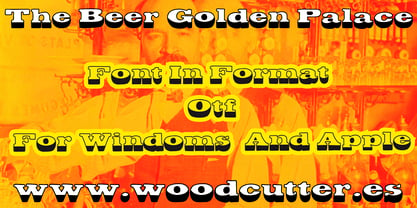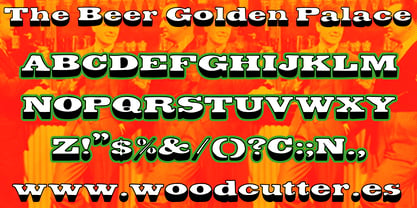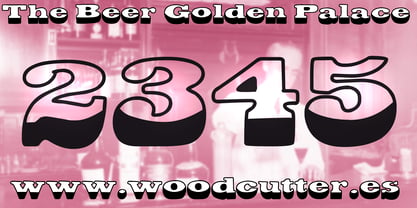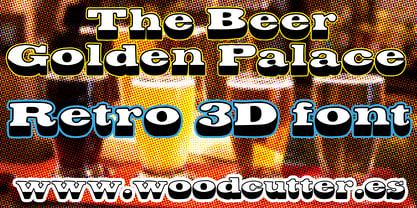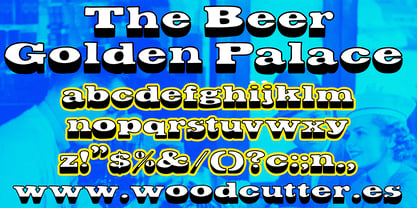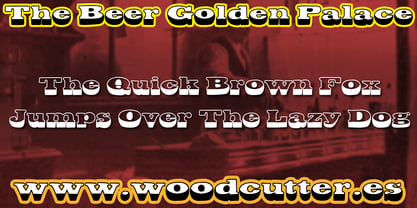
The Beer Golden Palace
by Woodcutter
The The Beer Golden Palace Font Family was designed by Jordi Manero and published by Woodcutter. The Beer Golden Palace contains 1 styles. More about this family
THE BEER GOLDEN PALACE is a typeface in uppercase and lowercase with accents, crafted with a vintage 3D style that recalls the classic signs of old breweries, saloons, and advertising from the late 19th and early 20th centuries. Each letter features a refined, slightly elongated main shape accompanied by a solid bottom shadow, adding depth and a bold three-dimensional presence. This shadow effect enhances readability and gives each word a strong, elegant impact.
The letterforms combine traditional charm with a refined tone, making this font perfect for graphic projects that aim to evoke a sense of nostalgic elegance with a handcrafted touch. It's ideal for beverage logos, bottle labels, vintage signage, bar or themed restaurant menus, promotional posters, or retro-style product branding.
THE BEER GOLDEN PALACE is more than just a decorative font—it’s a powerful visual tool that blends the glamour of golden-era beer palaces with solid, memorable typographic design. It turns any text into a striking and personality-filled graphic element.